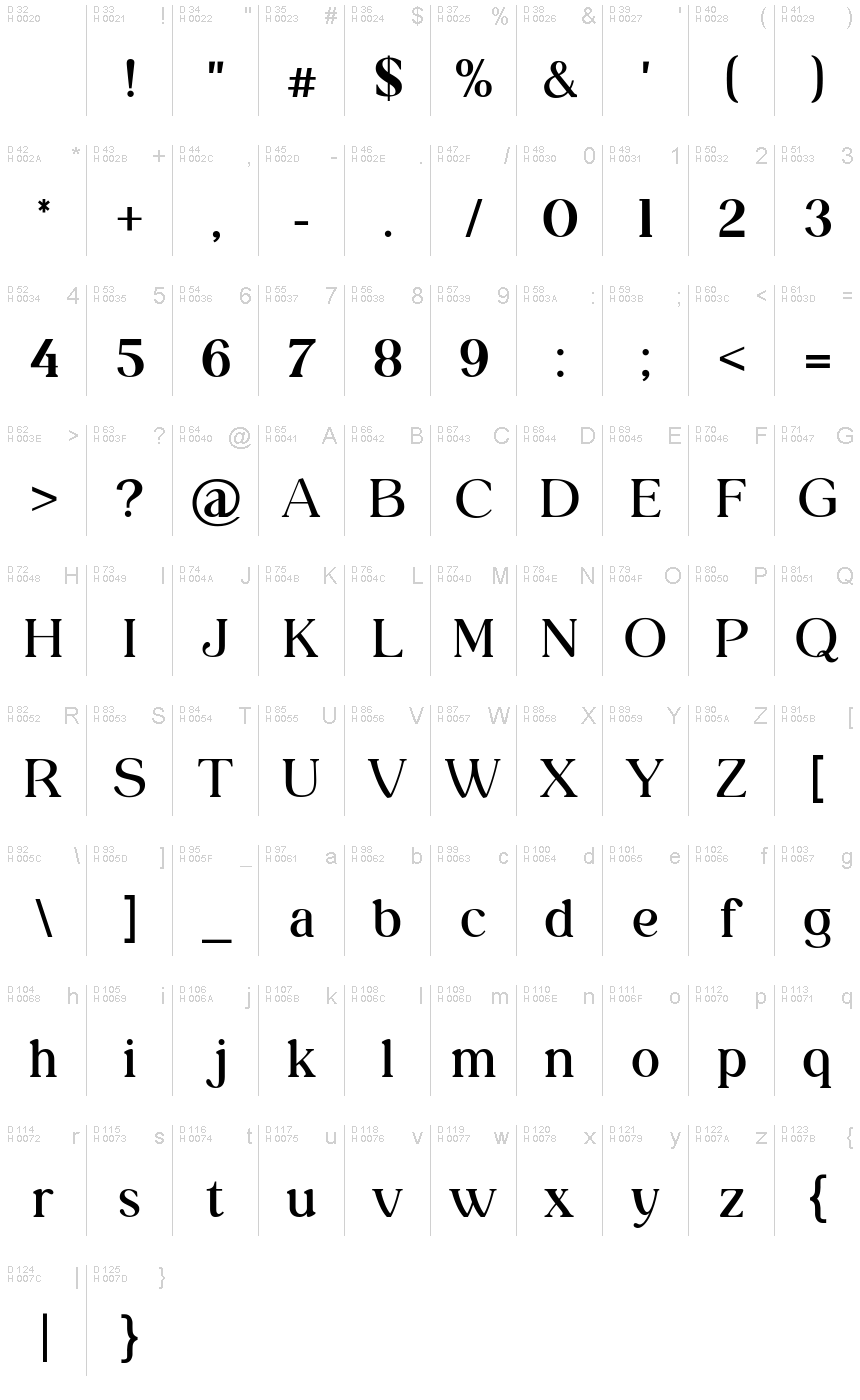
Mont Gilnoza
Mont Gilnoza, a serif font crafted by UI Creative, exudes a captivating blend of elegance and timeless sophistication. Its meticulously designed letterforms possess a harmonious balance, seamlessly blending classical influences with a modern sensibility. The font's clean lines and subtle serifs create a refined, yet approachable aesthetic, inviting the reader to immerse themselves in the content. This versatile typeface effortlessly evokes a sense of refined professionalism, making it an excellent choice for a wide range of design applications.
The distinct personality of Mont Gilnoza allows it to adapt seamlessly across various mediums, from editorial layouts and corporate branding to high-end packaging and digital interfaces. Its legibility and versatility make it a compelling option for projects that require a touch of elegance and timelessness, leaving a lasting impression on the audience.